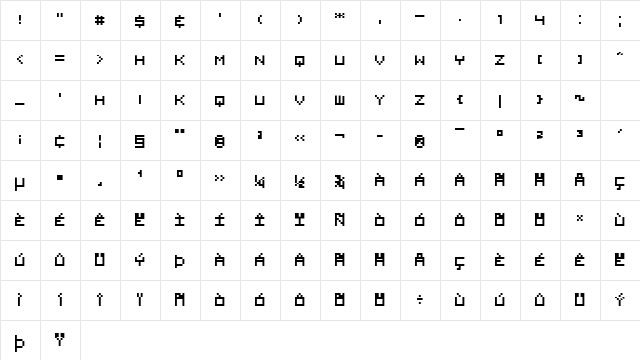
Visitor TT2 (BRK) Regular
Design Context for Visitor TT2 (BRK) Typeface
Visitor TT2 (BRK) takes a measured approach to typography — its balanced proportions and neutral character make it a reliable workhorse for both digital and print work.